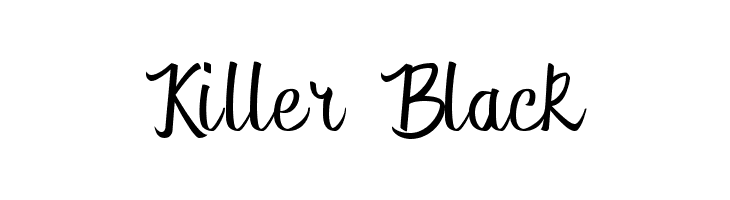
A playful, casual script font with smooth curves and a handwritten style.
A decorative and artistic font with flowing, cursive-like letters and unique embellishments.
A bold, brush-style font with dynamic, hand-painted strokes.
A dynamic, cursive script font with elegant slants and lively contrast.
A futuristic and geometric font with bold, interconnected lines and intricate details.
A bold, brush-like font with expressive and dynamic strokes.
An elegant, flowing script font with a natural handwriting style.